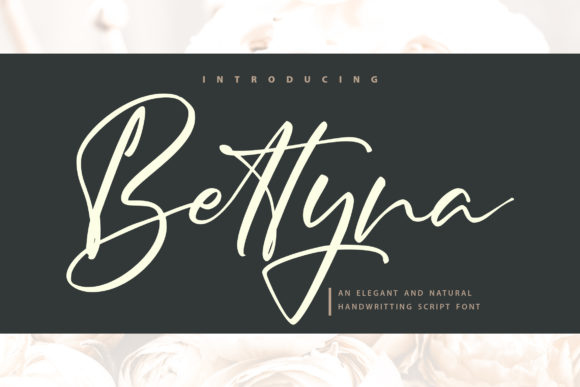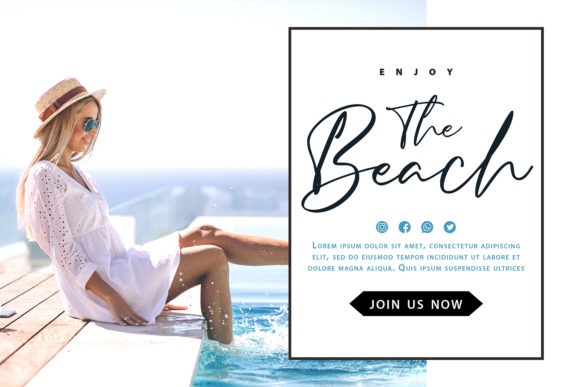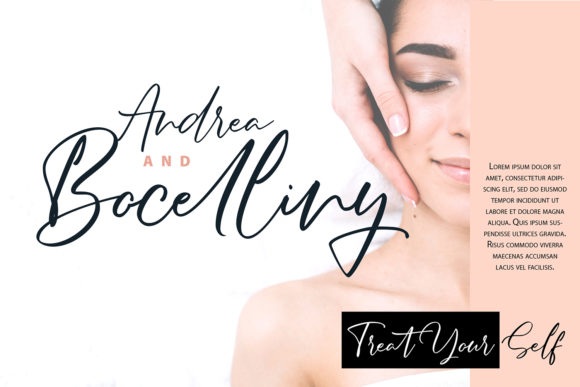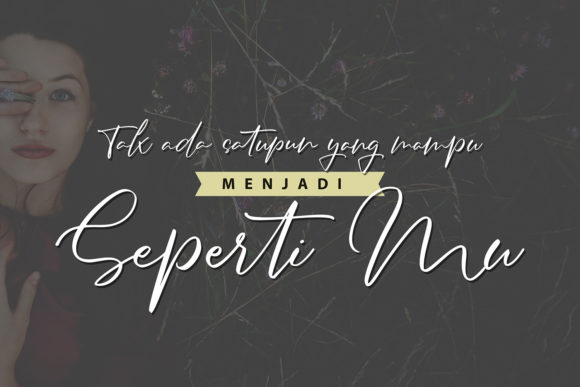
About Bettyna Font
Bettyna is a delicate and stylish handwritten font. This versatile script font has a wide spectrum of applications ranging from greeting cards to headlines and is guaranteed to add a romantic feel to your next project.